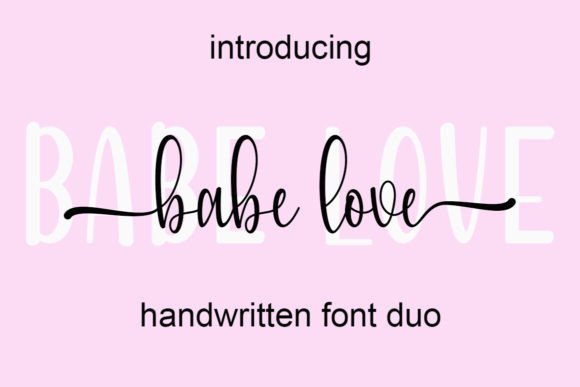
Introduction to Babe Love Font
Babe Love is a lovely handwritten font duo featuring well-rounded characters and a stylish vibe.
Get inspired by its light and approachable style, and use it in your favorite creations It looks beautiful on wedding invitations, greeting cards, logos, posters, labels, t-shirt designs, logos, and business cards.
Why Choose Babe Love Font?